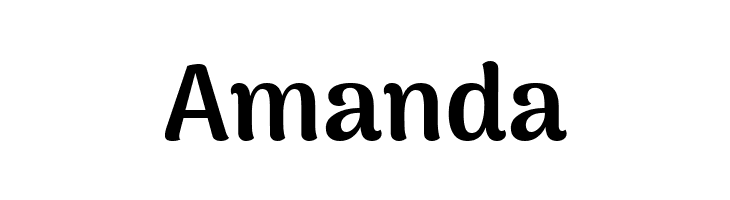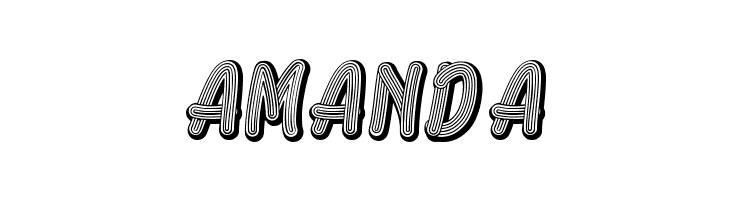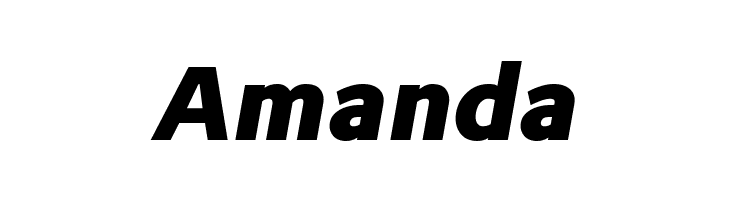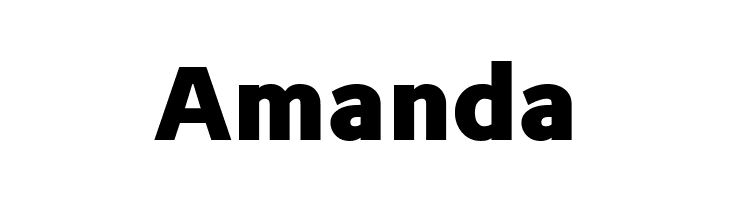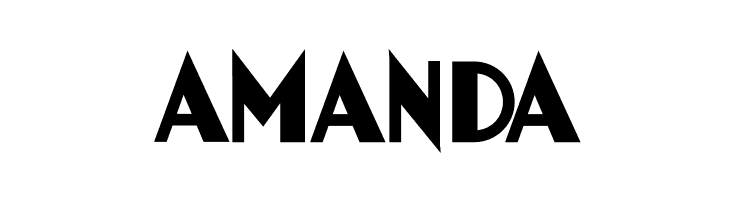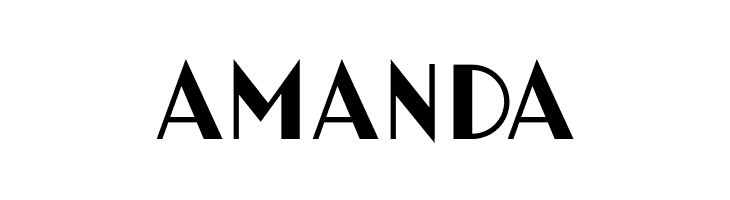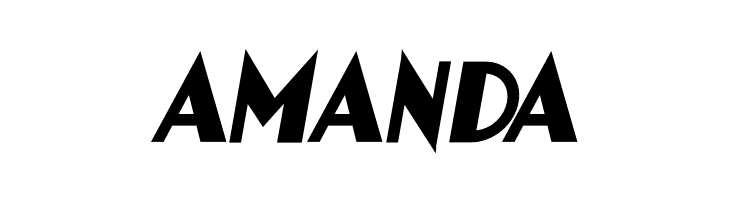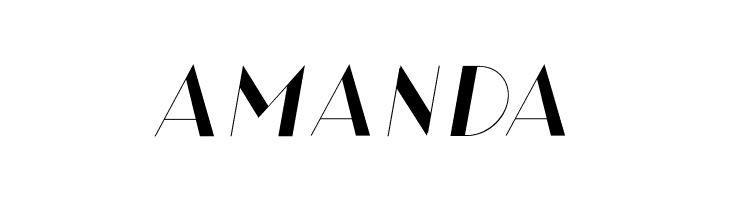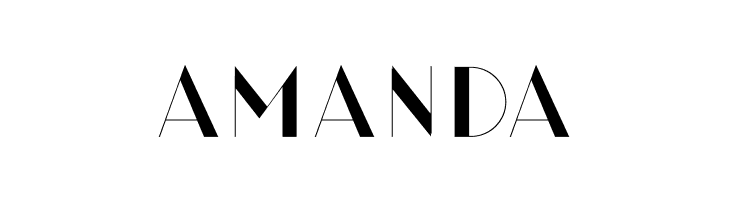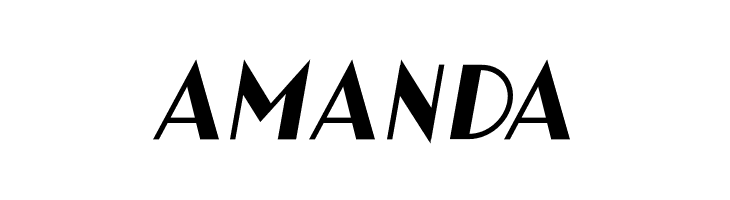
A bold, rounded font with a playful yet structured style.
A bold, rounded font with a playful and structured design.
A bold, handwritten font with dynamic and energetic strokes.
A bold, decorative font with a layered, dimensional effect.
A bold, expressive script font with interconnected characters and strong strokes.
A bold, modern sans-serif font with clean, geometric lines.
A bold, hand-crafted font with a playful and artistic style.
A bold, textured, hand-drawn font with a playful and vintage poster art style.
A bold, italicized Art Deco-inspired font with high contrast and angular design.
A bold, geometric Art Deco font with strong contrast and tight spacing.
A bold, Art Deco-inspired italic font with angular lines and geometric shapes.
A bold, geometric font inspired by the Art Deco era, perfect for striking visual designs.
A sleek, italicized Art Deco font with thin, elongated letterforms and high contrast.
A sleek, Art Deco-inspired font with thin, elegant lines and geometric shapes.
A bold, geometric font with sharp angles and a modern aesthetic.
A bold, geometric font with sharp angles and minimal contrast.
A bold, italic font with a dynamic and energetic style.
A bold, futuristic font with dynamic slanted angles and rounded letterforms.
A bold, futuristic font with geometric shapes and consistent thickness.
Bold, distressed display font with a grunge texture.
A bold, artistic font with unique geometric elements and playful design.
A bold, high-contrast italic font with dynamic and unique character shapes.
A modern, geometric outline font with artistic flair.
A modern, italicized outline font with a playful and dynamic style.
A flowing, cursive font with a handwritten, elegant style.
A bold, serif font with strong strokes and a classic yet modern aesthetic.
A bold, italic serif font with high contrast and sharp serifs.
A bold, italic serif font with a dynamic and authoritative style.
A bold, high-contrast serif font with a dramatic and elegant style.
A bold, modern font with thick strokes and a strong presence.
Bold, italic font with a dynamic and modern style.